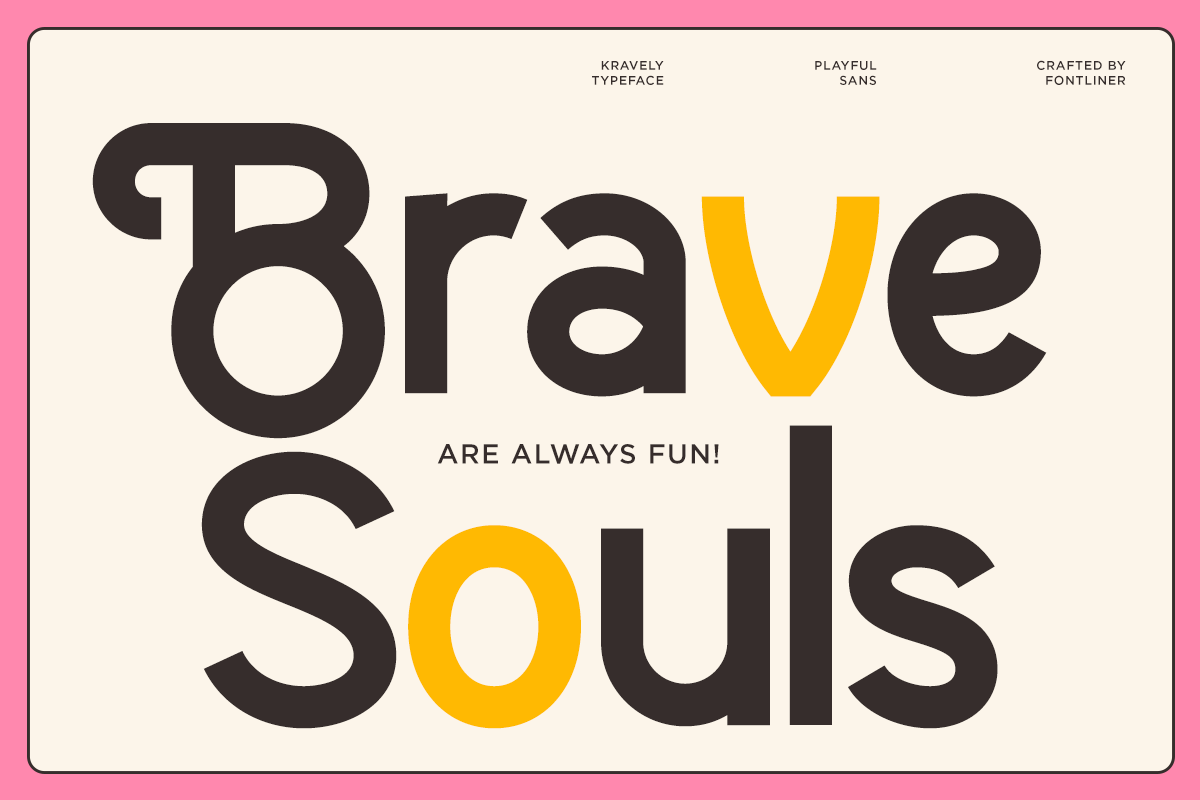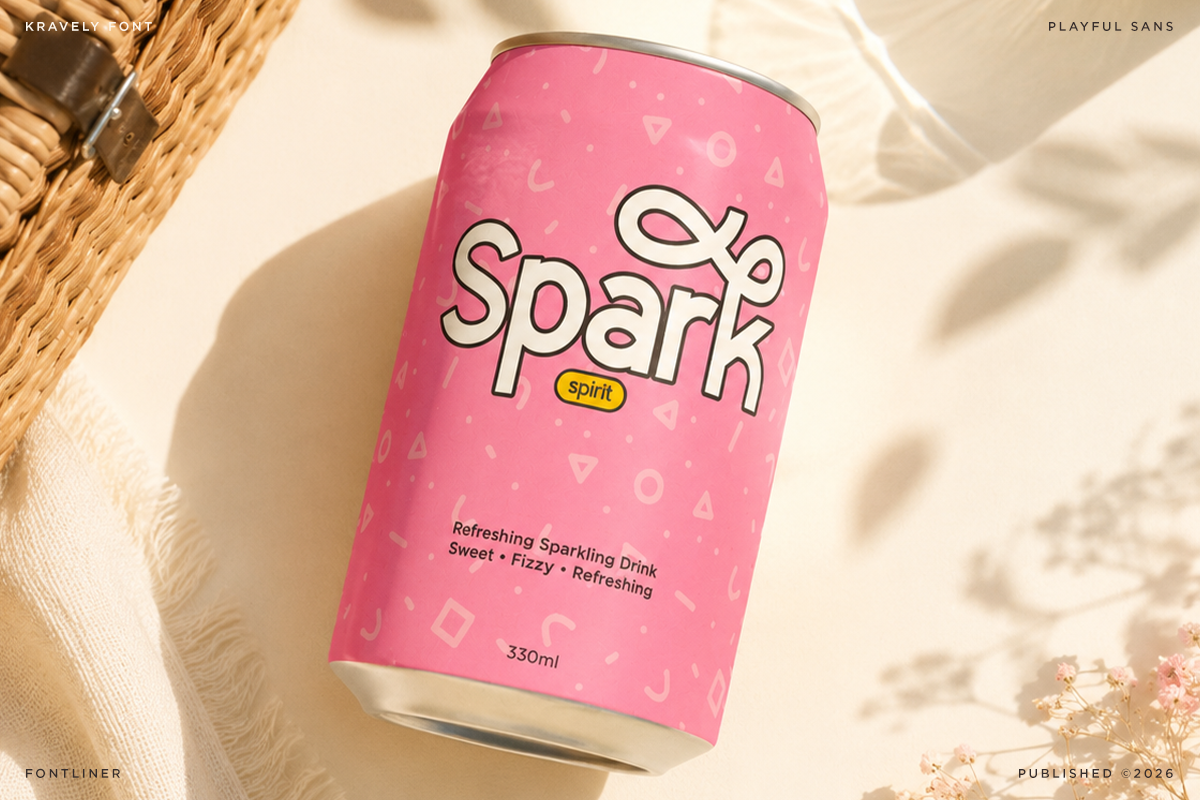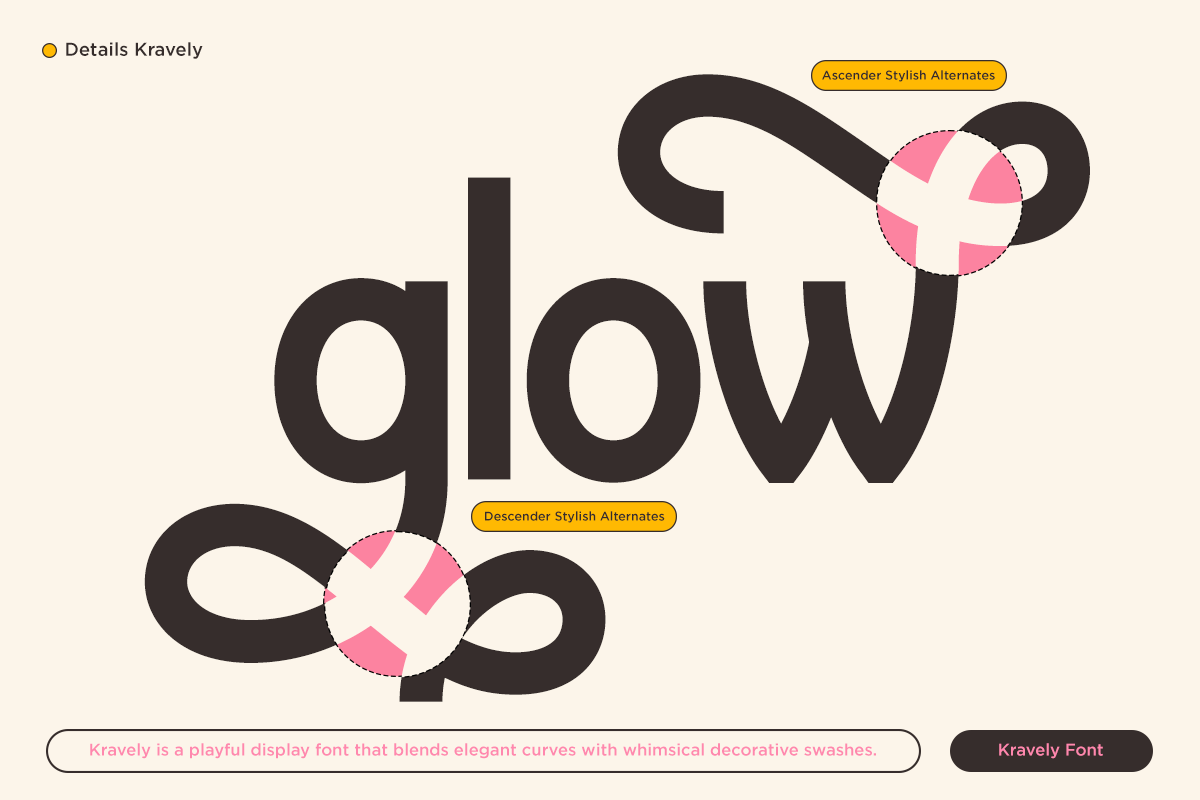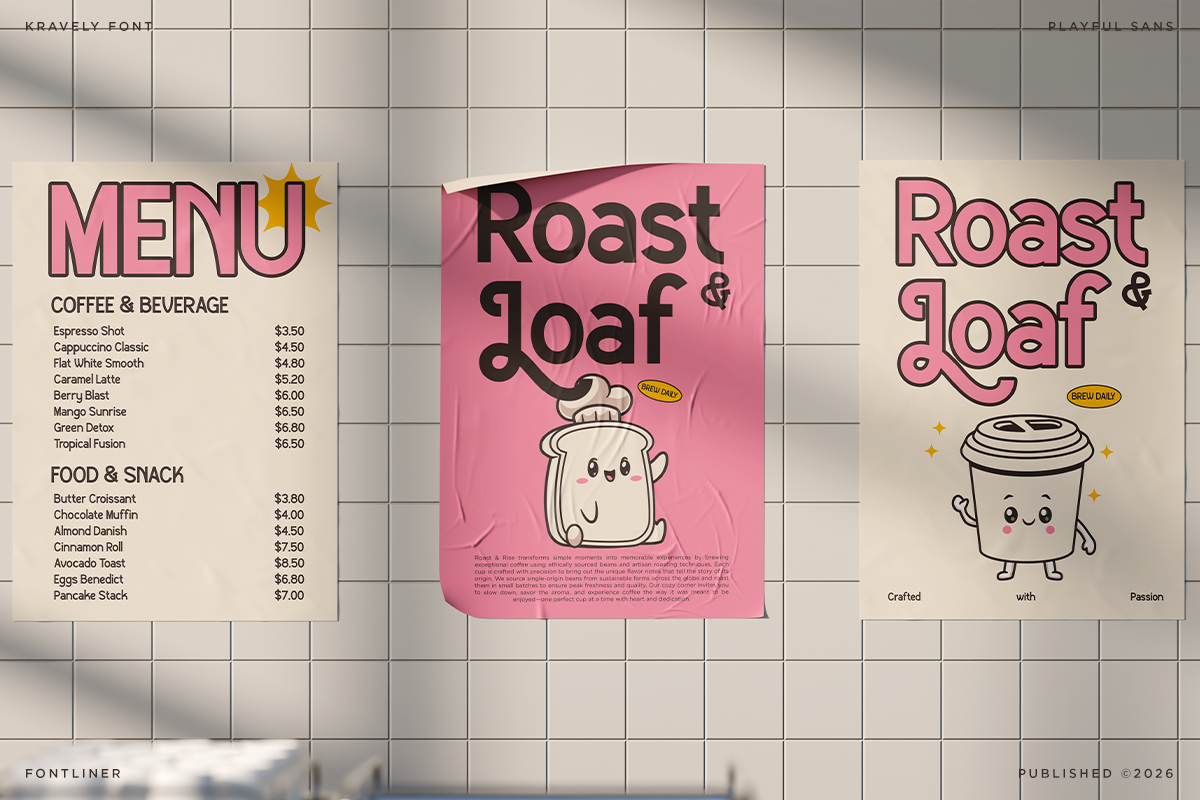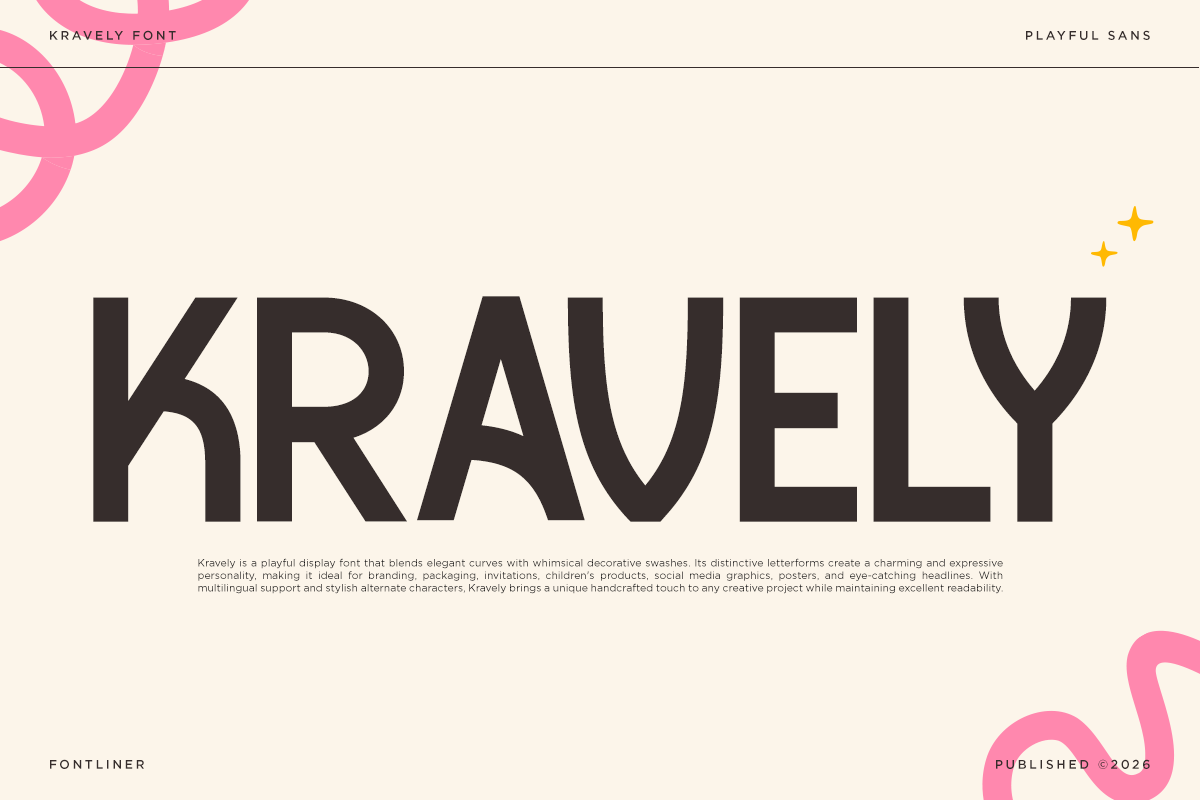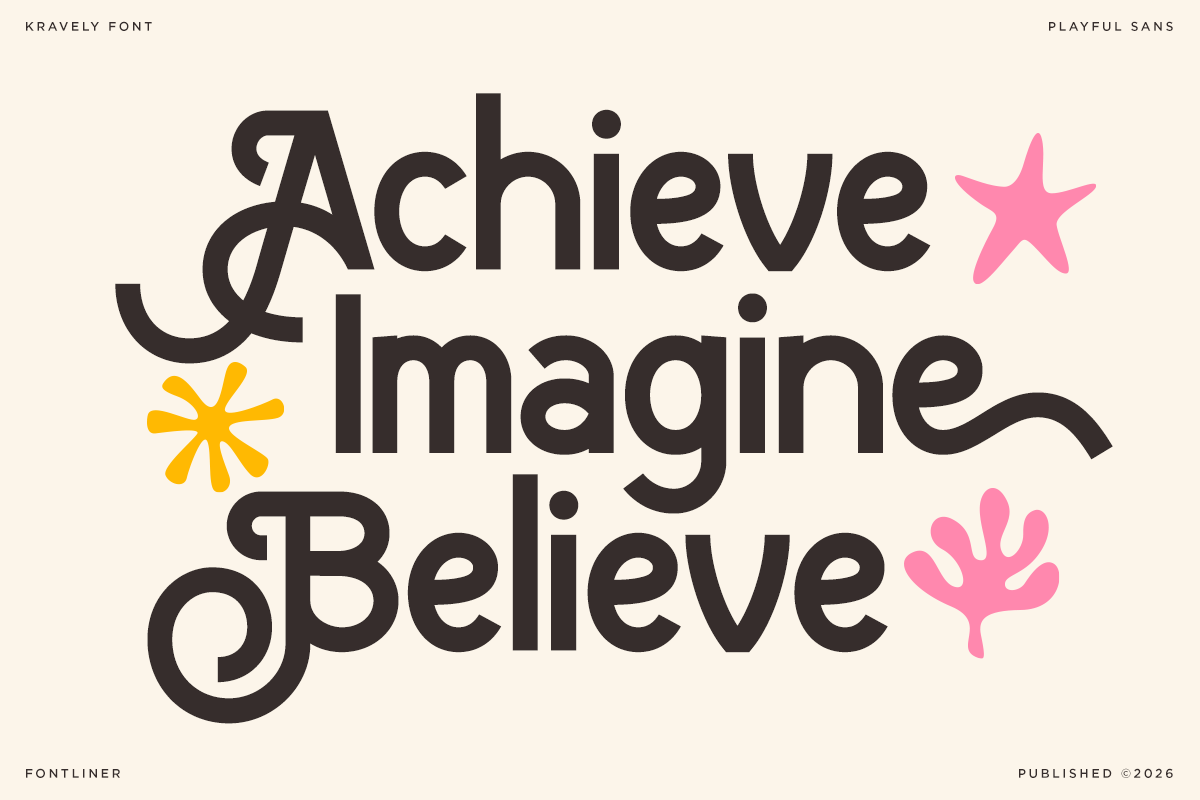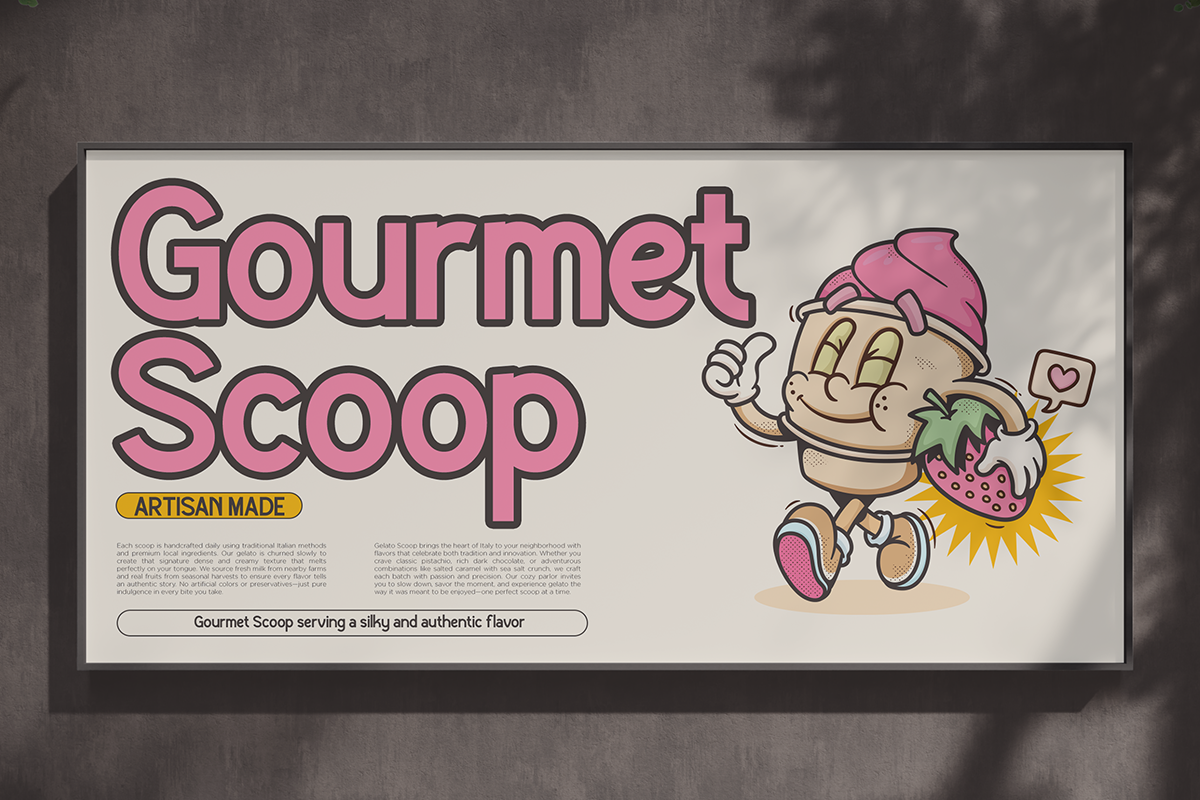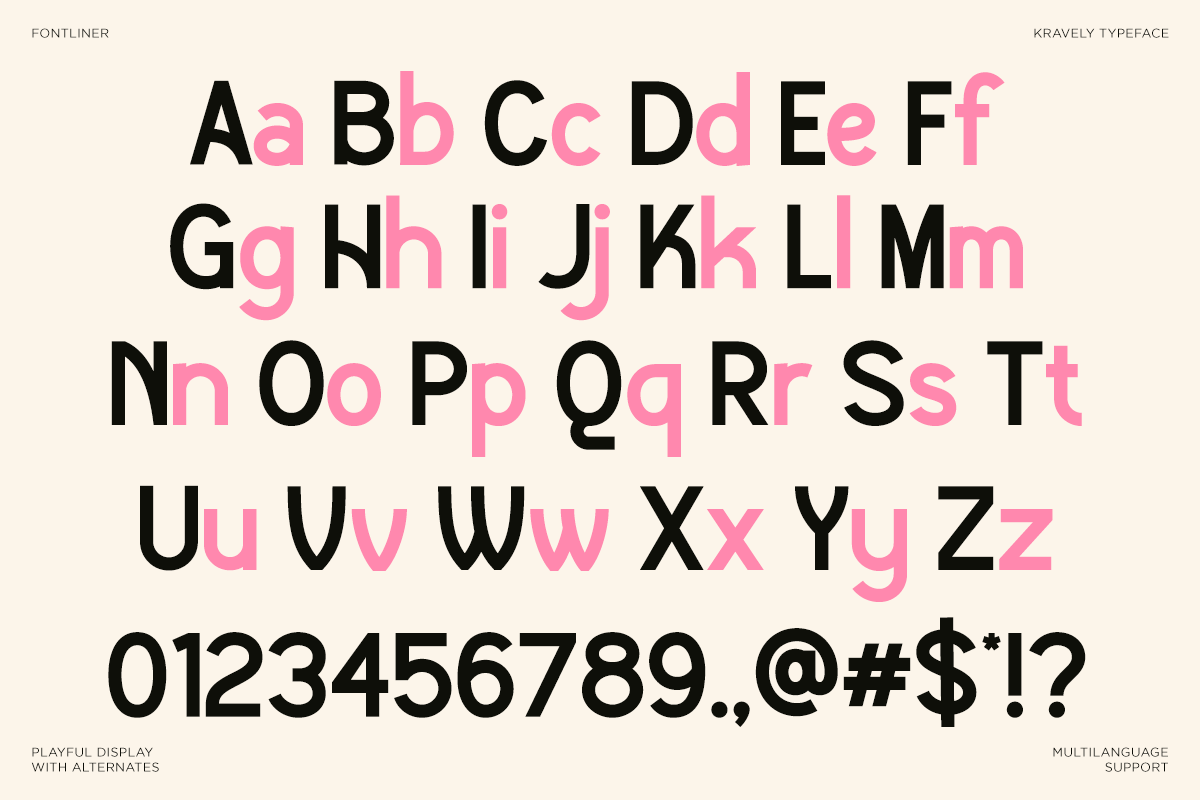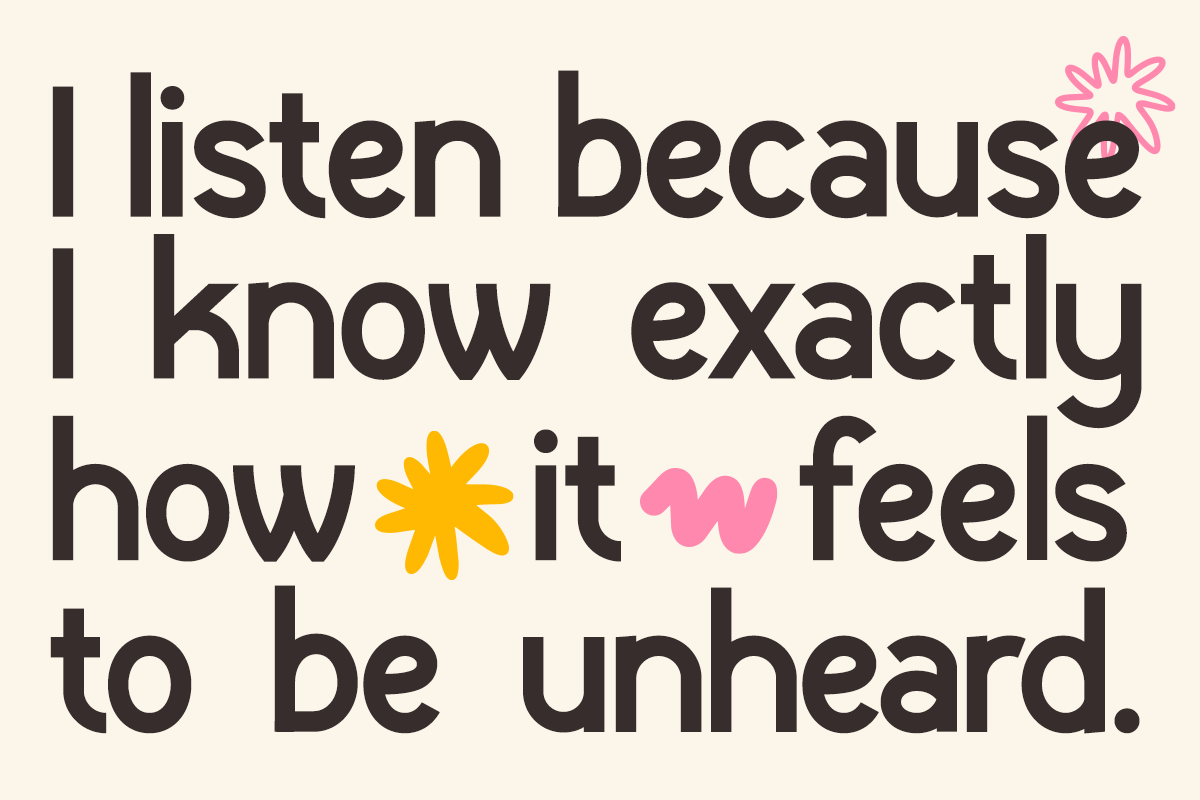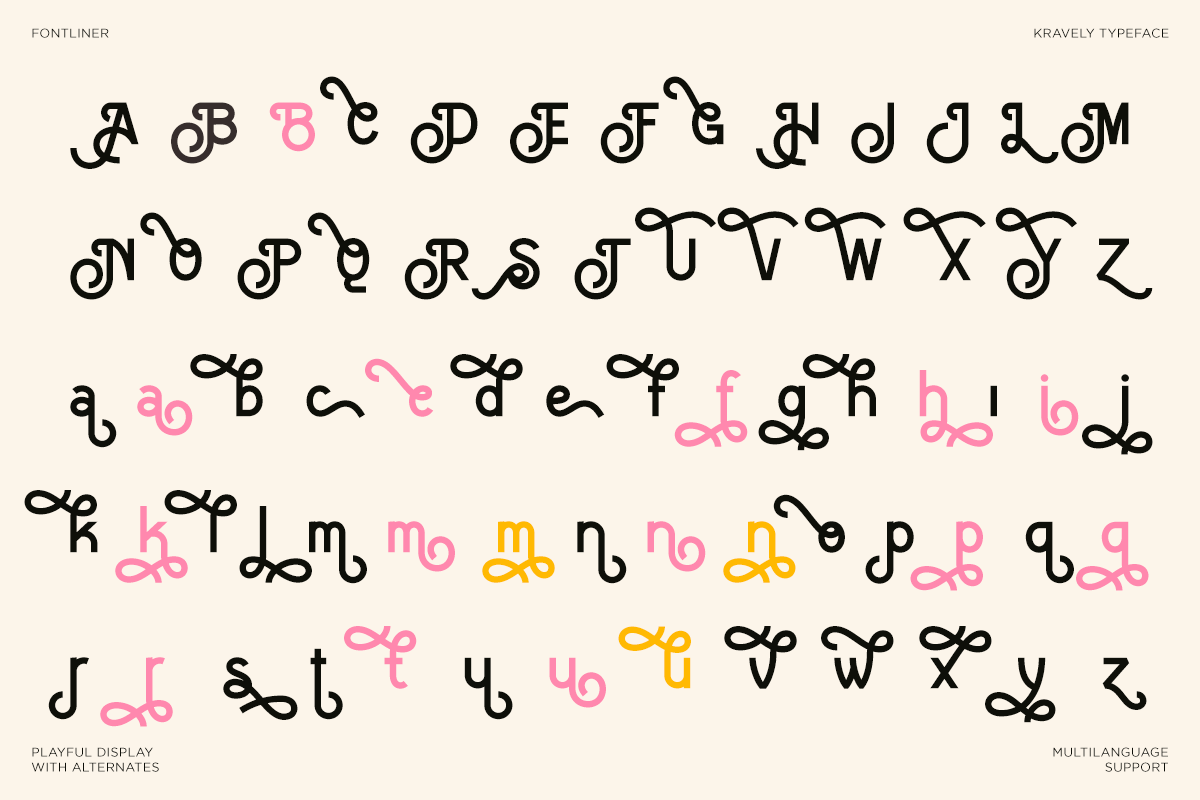
Kravely - Playful Decorative Font
Kravely is a playful retro display font designed to bring warmth, personality, and joyful energy to every creative project. Featuring bold rounded letterforms, charming swashes, and unique decorative alternates, it creates eye-catching typography that instantly stands out. Whether you're crafting modern branding or nostalgic designs, Kravely delivers a fun yet professional look.
Perfect for logos, packaging, food branding, cafés, bakeries, kids products, editorial layouts, social media graphics, posters, apparel, quotes, stickers, merchandise, invitations, and creative advertising. Its expressive style makes it an excellent choice for projects that need a friendly, cheerful, and memorable visual identity.
Kravely includes uppercase, lowercase, numbers, punctuation, multilingual support, and a rich collection of stylistic alternates giving you endless possibilities for creating distinctive typography. It's an ideal font for designers, creators, and brands looking to add a playful retro touch to their work.
Regular and Italic
Number, Symbol, and Punctuation